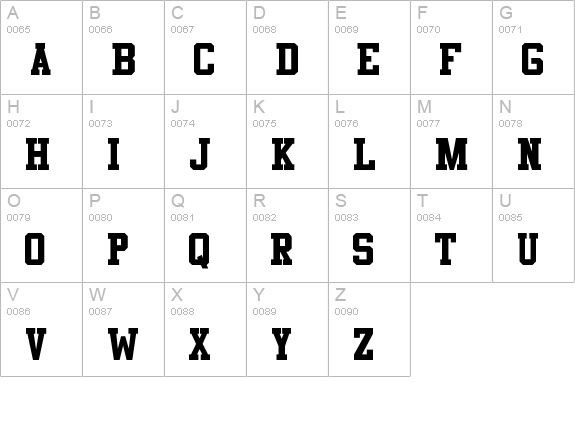
Athletic Regular Font Details
Athletic Regular is the standard, neutral variant in the Athletic typeface family \xE2\x80\x94 well suited to general body text, paragraphs, and standard typographic work.
Athletic Regular font is a stylish, versatile typeface that exudes energy and dynamism. With its bold and strong letterforms, this font is perfect for capturing the essence of athleticism and sportsmanship. Its clean and crisp design ensures legibility, making it suitable for a wide range of applications. Whether you are creating sports-related graphics, designing athletic apparel, or crafting motivational posters, Athletic Regular font will elevate your designs to the next level. Its sleek lines and balanced proportions give your text a professional and polished look, while the bold weight adds impact and presence. One of the best things about Athletic Regular font is that it is available for free download at FontsMarket.com. This means that you can easily access this amazing font without any cost. Whether you are a professional designer or a hobbyist, you can freely explore the creative possibilities that this font offers without breaking the bank. So, why wait? Download Athletic Regular font today from FontsMarket.com and unleash your creativity. Whether you are designing a sports team logo, creating a gym advertisement, or simply adding a touch of athleticism to your project, this font is sure to make a lasting impression. With its versatile and captivating design, Athletic Regular font is a must-have for any designer or enthusiast.